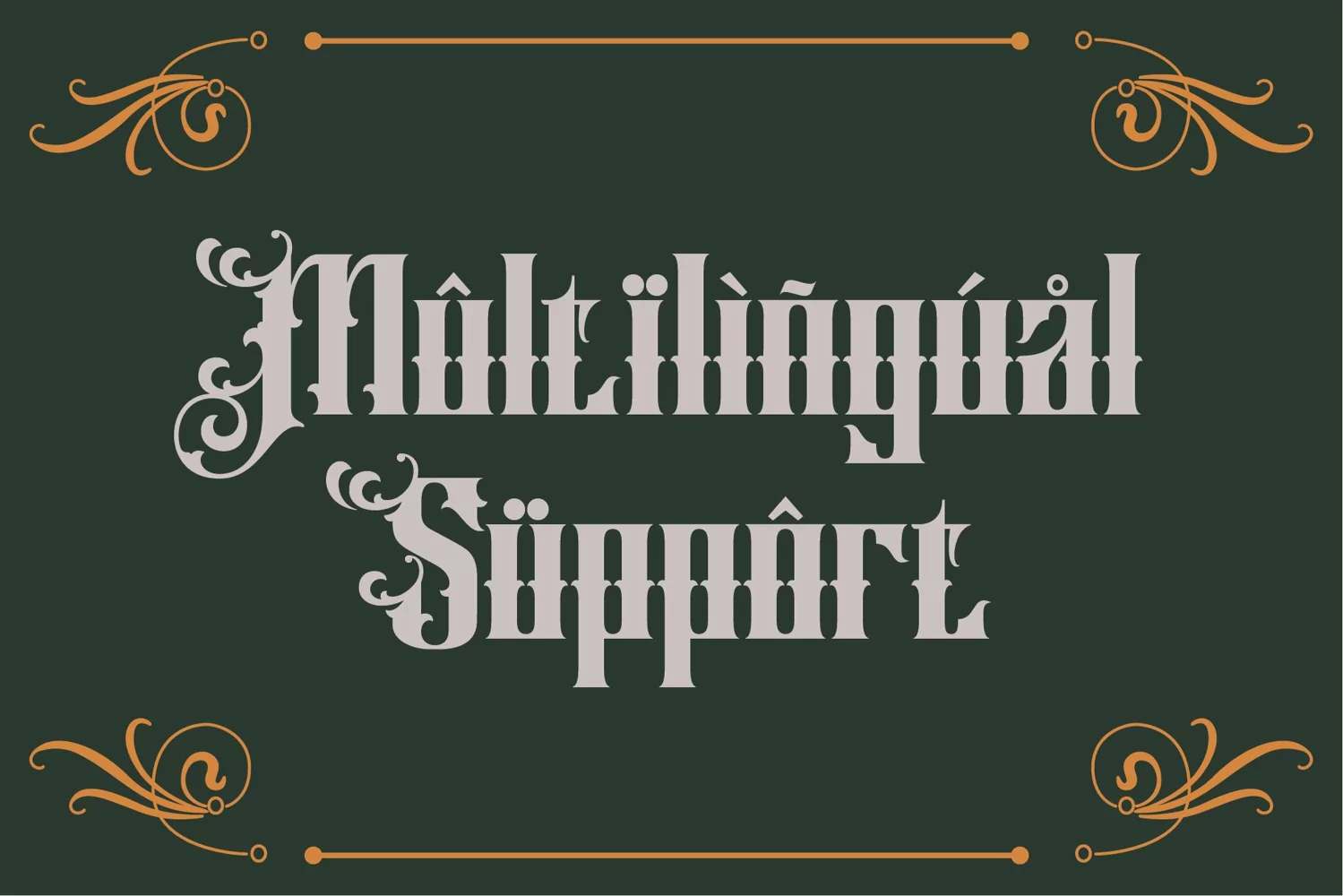
Yorken Burg - Vintage Font
If you looking for strong font for display or title this item is a great choice to make your design authentic.
Yorken Burg font has 202 character glyphs included the multilingual and alternate glyphs, the alternate glyphs will make your design more decorative.
Yorkenburg Font